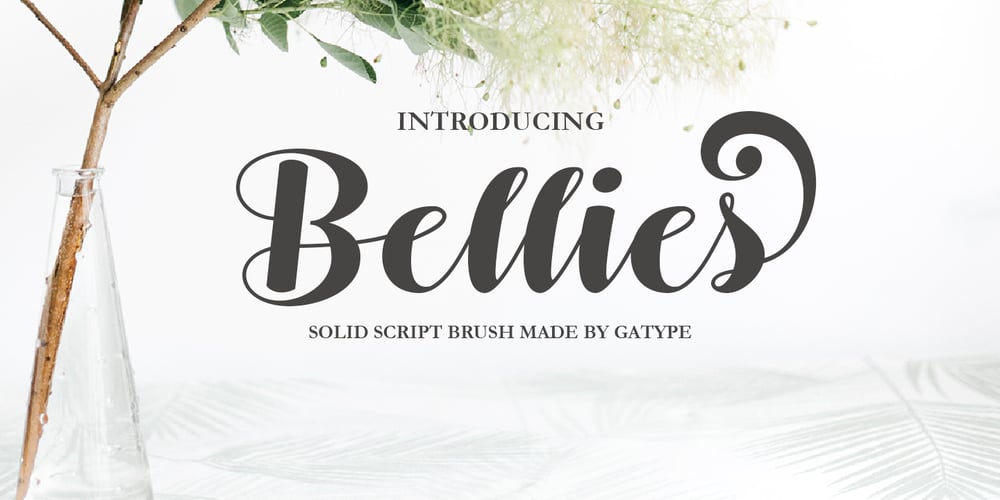
Bellies Font Family was designed by khaidir and published by Gatype. Bellies contains 1 styles and family package options. Bellies is a modern calligraphic font. Beautiful bellies for logotypes, website headers, fashion designs, wedding card designs and more. Bellies comes with an elegant style, Bellies It contains a complete set of lowercase & uppercase letters, various kinds of punctuation, numbers and multilingual support.What’s Included:Commercial use is fully permitted for this font! Don’t worry about license renewal. Everything you might need is included in the standard license.To access alternative glyphs, you’ll need a program that supports OpenType features such as Adobe Illustrator CS, Adobe Photoshop CC, Adobe Indesign, and Corel Draw.Thank youGatype